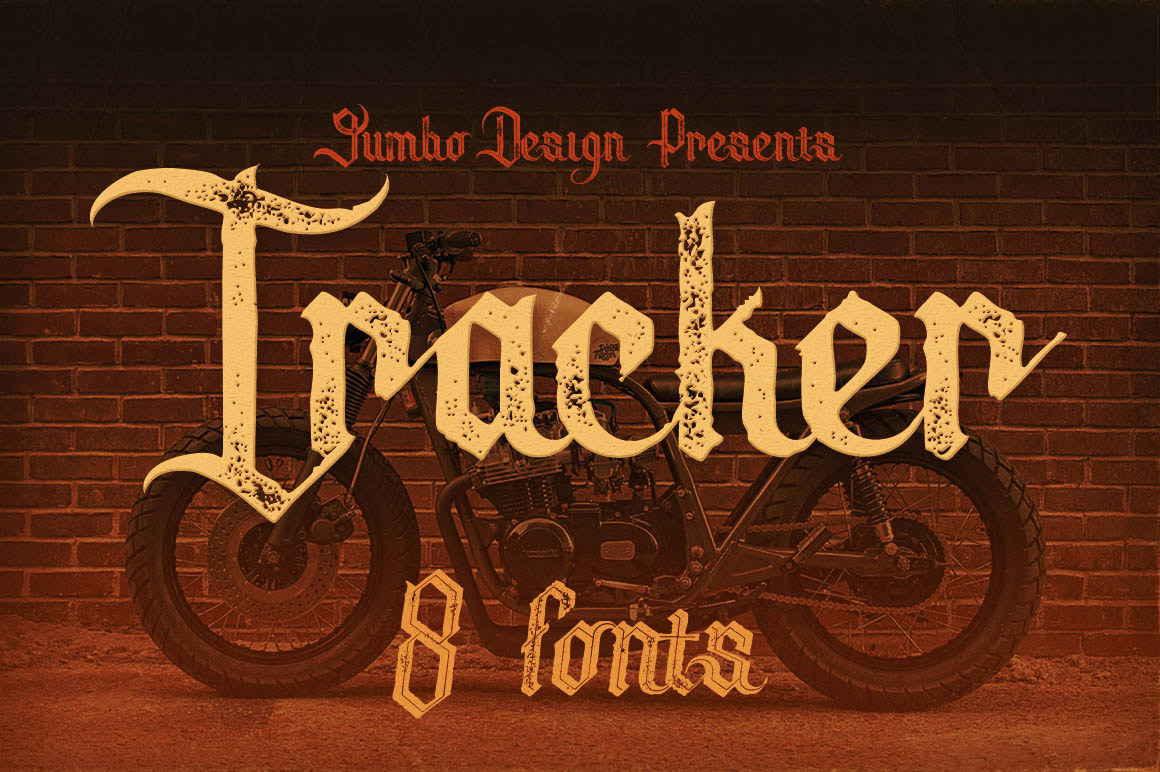
Tracker - Vintage Style Font
Unique retro or vintage style custom font with 8styles: regular and grunge, inline and inline grunge, italic and italic grunge, italic inline and italic inline grunge